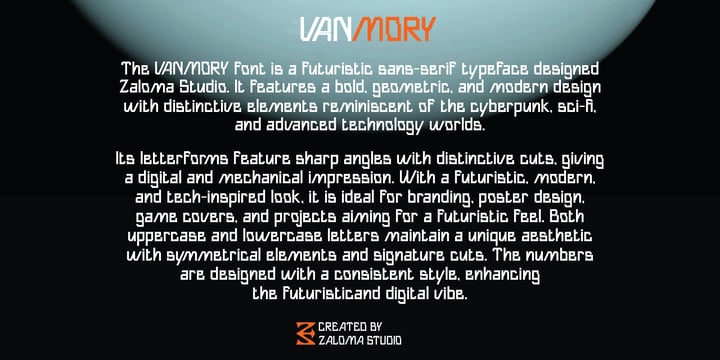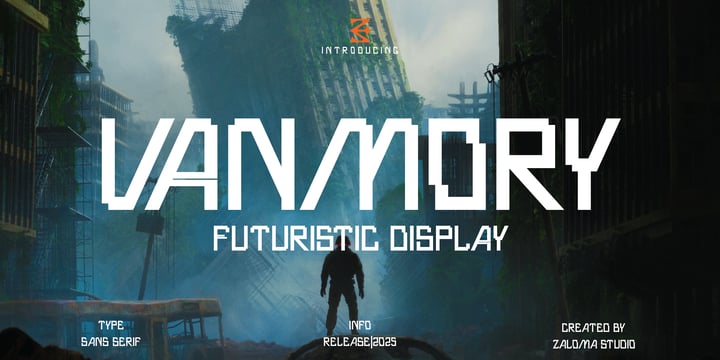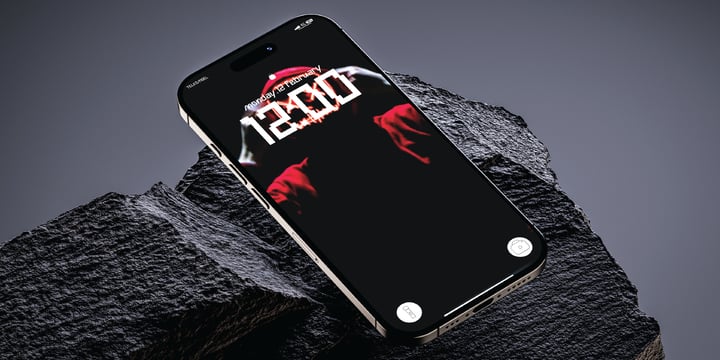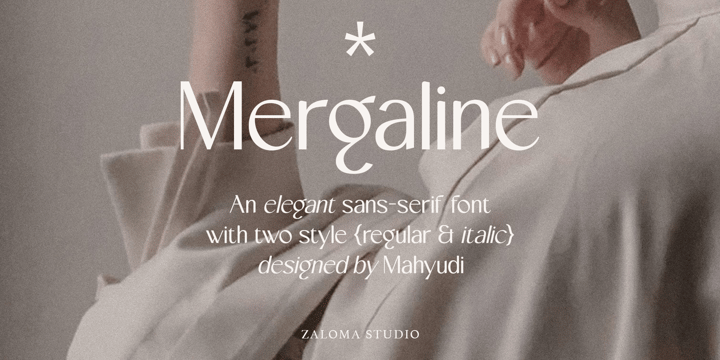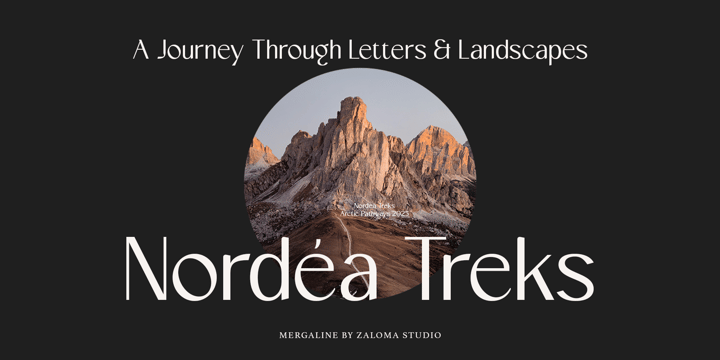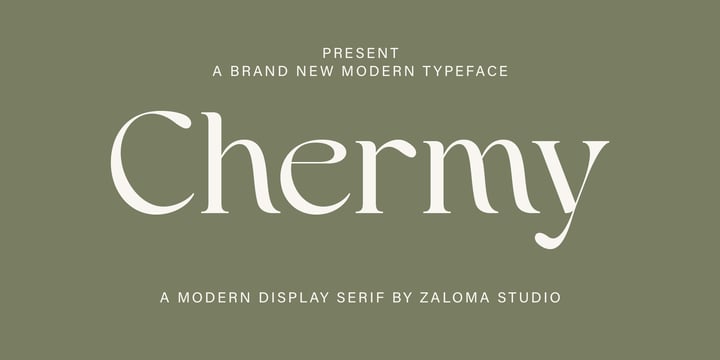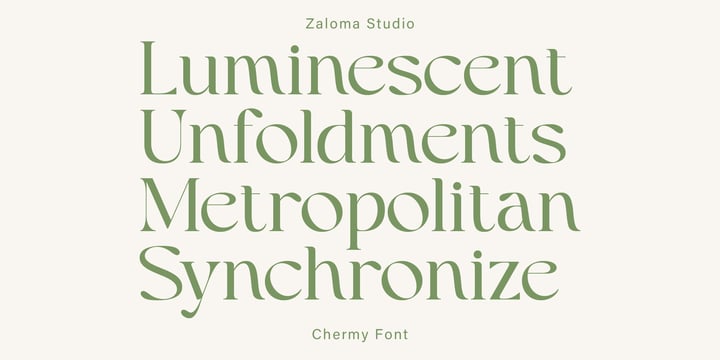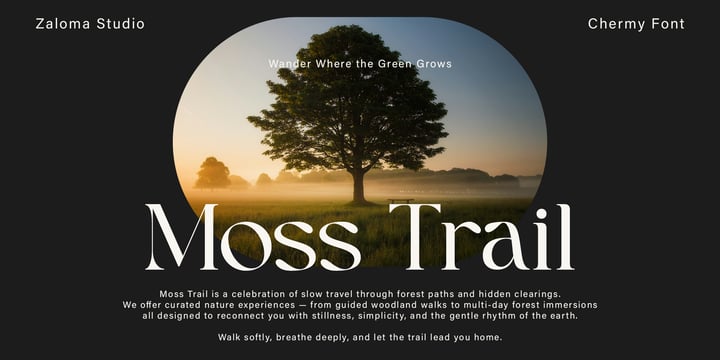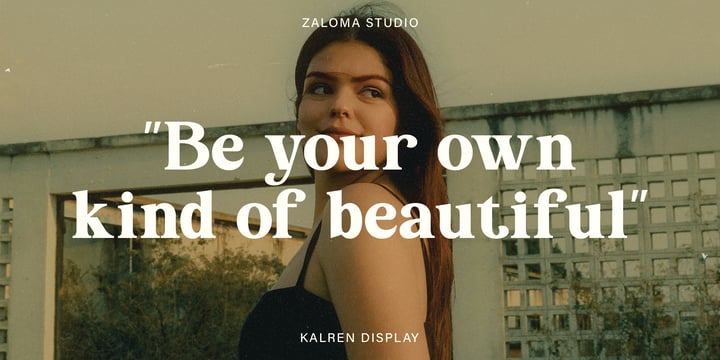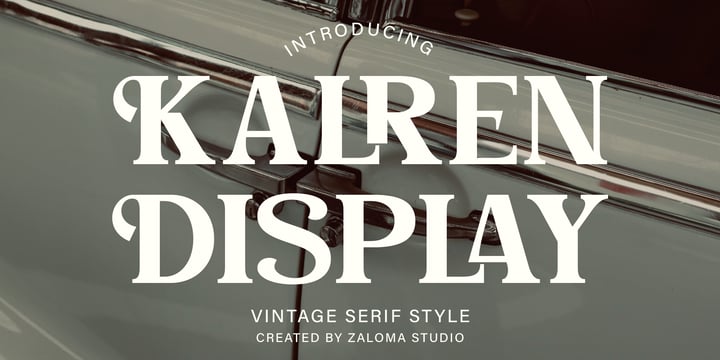
Mahyudi is a self-taught typeface designer with a deep passion for typography and letterform craftsmanship. Since embarking on his journey in 2021, he has dedicated himself to mastering the art of type design through continuous learning and exploration. His approach is driven by a strong appreciation for historical influences, balanced with a modern sensibility that ensures both elegance and functionality.
Mahyudi’s design philosophy revolves around the idea that typography is not just a visual element but a fundamental aspect of communication. He believes that a well-crafted typeface should evoke emotion, enhance readability, and seamlessly adapt to various design contexts. His work often reflects a meticulous attention to detail, from refined letterforms to thoughtfully designed alternates and ligatures, allowing designers to create expressive and distinctive compositions.
Through his foundry, Zaloma Studio, Mahyudi strives to create timeless typefaces that bridge the gap between tradition and innovation, offering designers the tools to craft compelling and memorable designs.